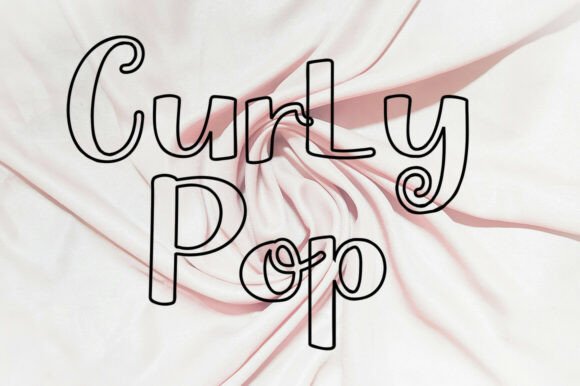
Bring a Cheerful, Modern Vibe to Your Designs with Curly Pop Font
In the world of typography, few fonts manage to capture the essence of casual creativity as effortlessly as Curly Pop. This playful and stylish handwriting font is designed to bring a cheerful, modern vibe to your designs, making it perfect for creatives who want to add a touch of warmth and personality to their work. With its smooth, rounded strokes and expressive letters, Curly Pop creates a friendly and welcoming tone that’s hard to resist.
The Charm of Curly Pop
One of the standout features of Curly Pop is its smooth, rounded strokes that give each letter a soft, approachable feel. The font’s expressive letters are designed to flow naturally, creating a handcrafted and authentic look that’s perfect for designs that need a personal touch. Whether you’re designing logos, invitations, greeting cards, posters, or social media templates, Curly Pop brings a touch of charm and modern flair to every project.
Curly Pop is more than just a pretty font – it’s also incredibly versatile. The typeface balances simplicity and style, making it bold enough for headlines and elegant enough for decorative text. This versatility makes it perfect for a wide range of design projects, from casual social media posts to more formal invitations and marketing materials.
Perfect for Creatives Who Love Personal Fonts
Curly Pop is designed for creatives who love fonts that feel personal and effortless. The font’s hand-lettered beauty and smooth strokes make it feel like every word was crafted with care. This makes it perfect for designers and crafters who want to add a touch of warmth and personality to their work. With Curly Pop, you can create designs that feel approachable, friendly, and uniquely yours.
Use Curly Pop for:
- Logos and branding materials: Add a touch of personality to your logo and branding materials with Curly Pop’s playful, modern vibe.
- Invitations and greeting cards: Create beautiful, one-of-a-kind invitations and greeting cards with Curly Pop’s elegant, hand-lettered style.
- Posters and flyers: Add a pop of personality to your posters and flyers with Curly Pop’s bold, expressive letters.
- Social media templates: Create engaging social media posts with Curly Pop’s friendly, approachable tone.
Why Choose Curly Pop?
So why choose Curly Pop for your design projects? Here are just a few reasons:
- Unique and playful style: Curly Pop’s unique and playful style sets it apart from more traditional fonts.
- Versatile and adaptable: The font’s versatility makes it perfect for a wide range of design projects.
- Hand-lettered beauty: Curly Pop’s hand-lettered beauty makes every word feel crafted with care.
- Easy to read: The font’s smooth strokes and expressive letters make it easy to read, even at smaller sizes.
In conclusion, Curly Pop is a playful and stylish handwriting font that’s perfect for creatives who want to add a touch of warmth and personality to their designs. With its smooth, rounded strokes and expressive letters, Curly Pop creates a friendly and welcoming tone that’s hard to resist. Whether you’re designing logos, invitations, greeting cards, posters, or social media templates, Curly Pop brings a touch of charm and modern flair to every project. So why not give Curly Pop a try and see how it can bring a cheerful, modern vibe to your designs?
- Playful and stylish handwriting font
- Smooth, rounded strokes and expressive letters
- Handcrafted and authentic look
- Versatile and adaptable
- Perfect for logos, invitations, greeting cards, posters, and social media templates